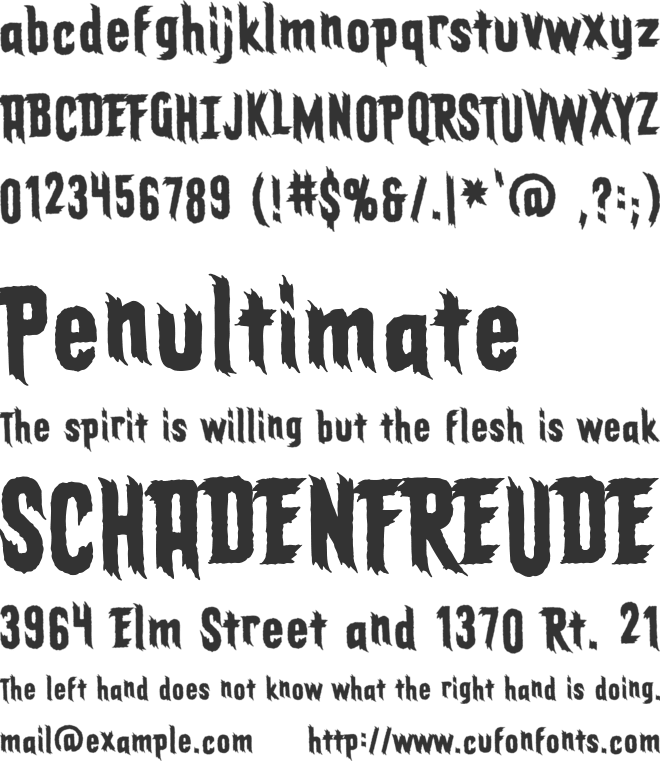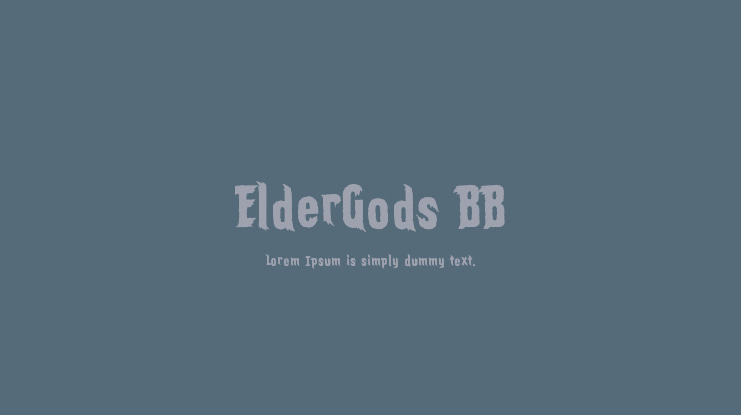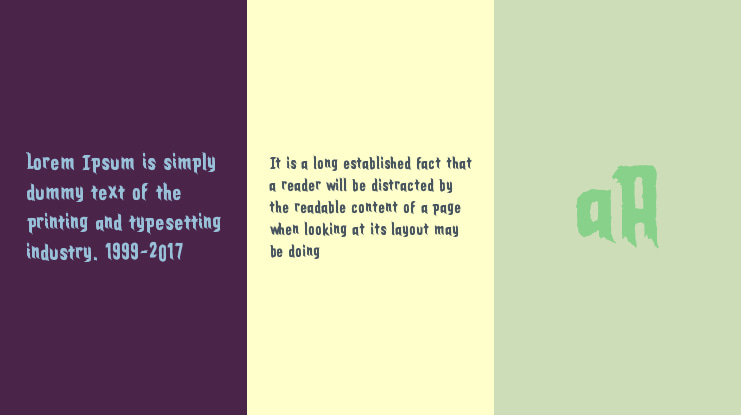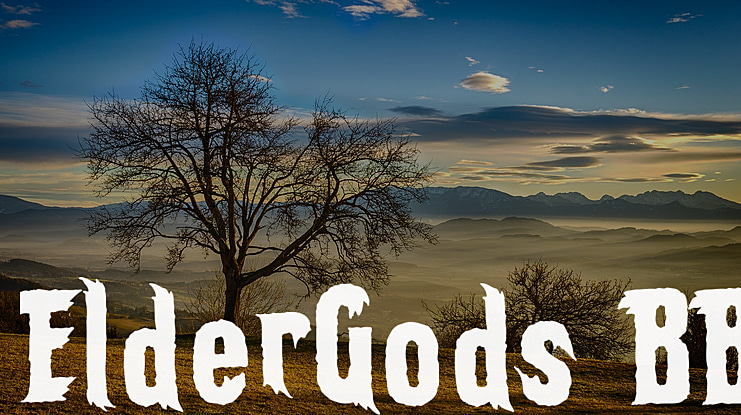
ElderGods BB Font Family
Got your stuff packed? Clean underwear? Good, because the Elder Gods have awakened from their subterranean slumber, and youâre their new servantâ¦FOREVER! Upper and lowercase font with a staggered baseline and it comes with Regular and Italic!